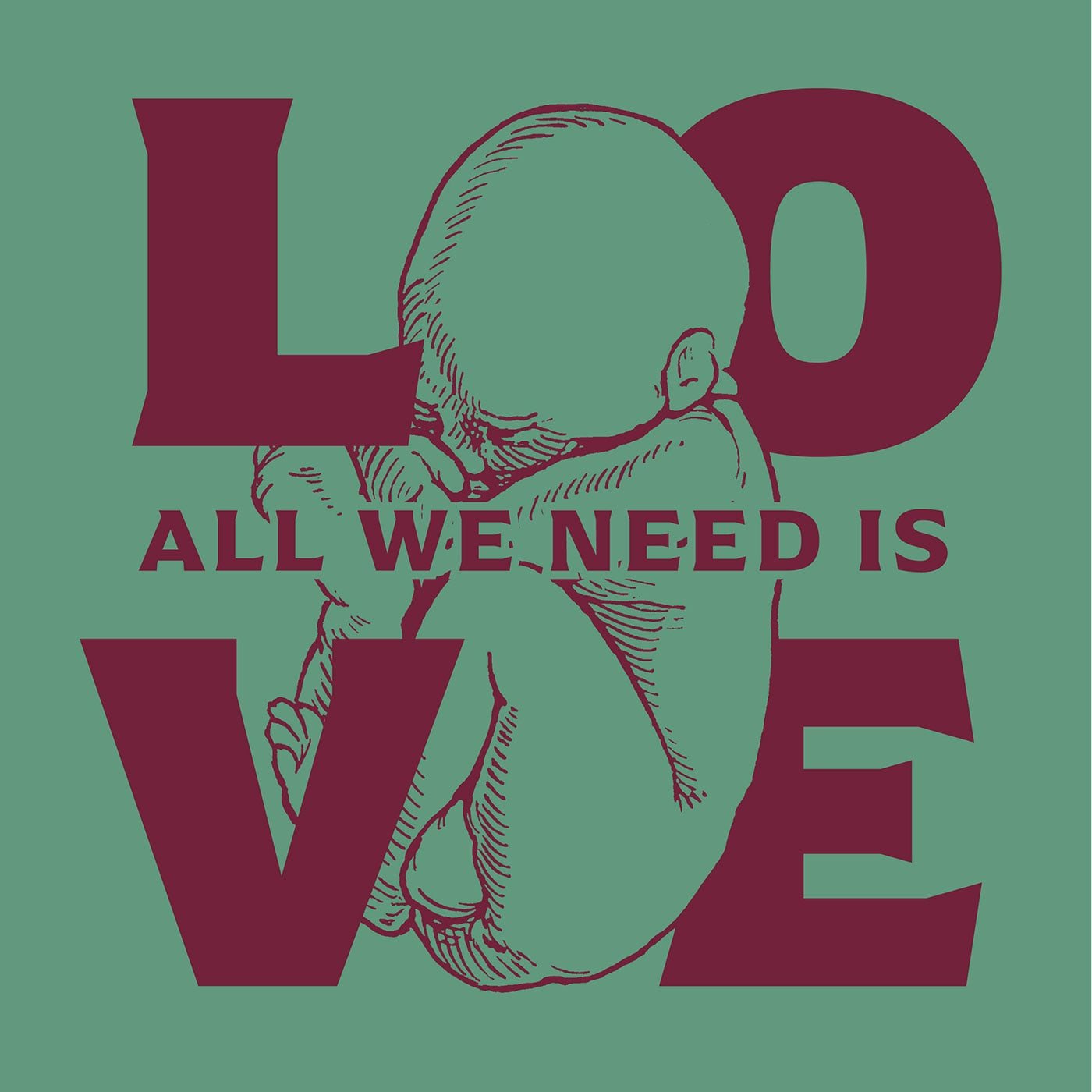
Felix Braden @ Floodfonts designed Arpona font. Arpona is a typeface with small wedge serifs and a strong character, ideal for corporate design and all pro...